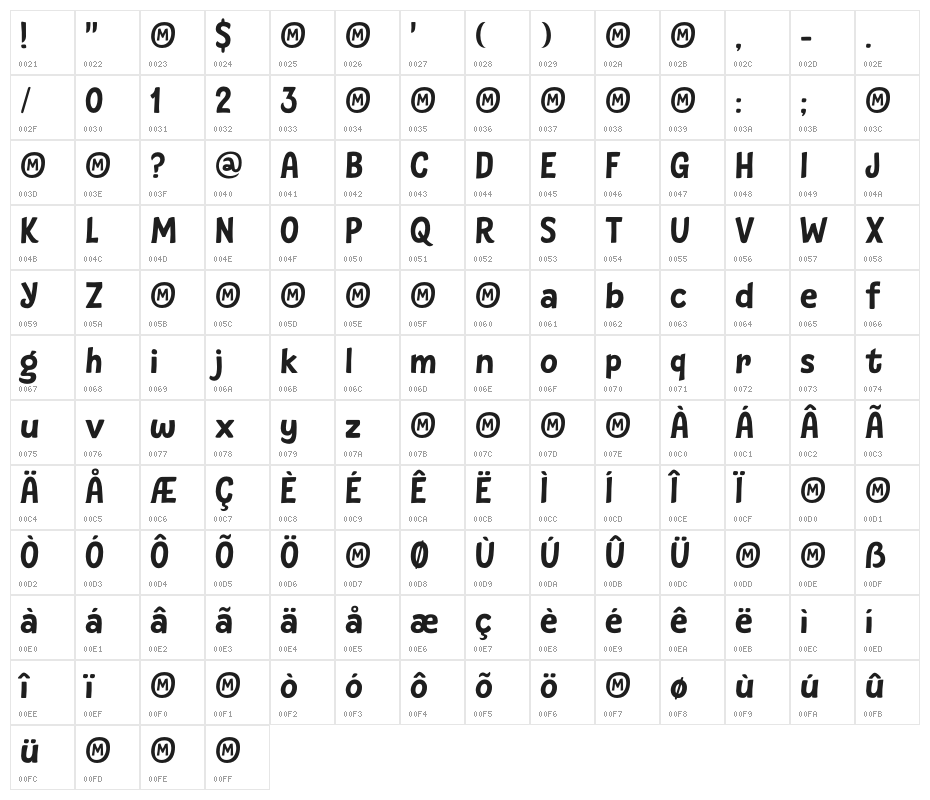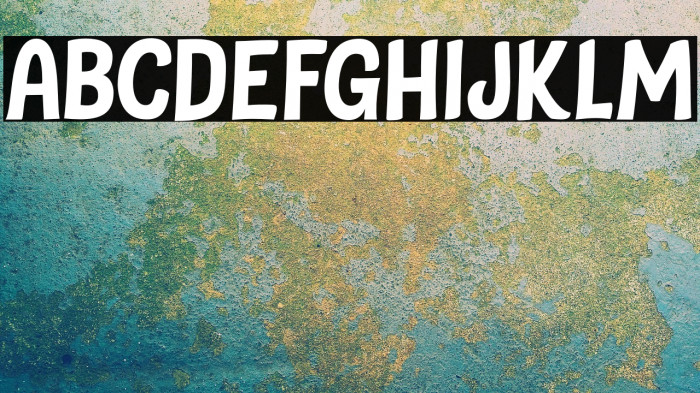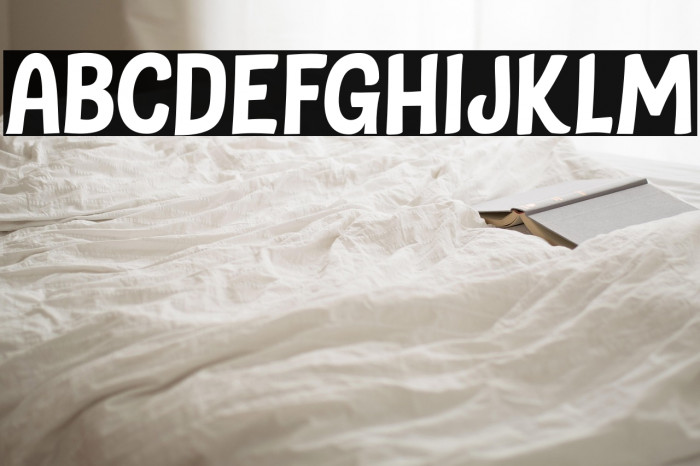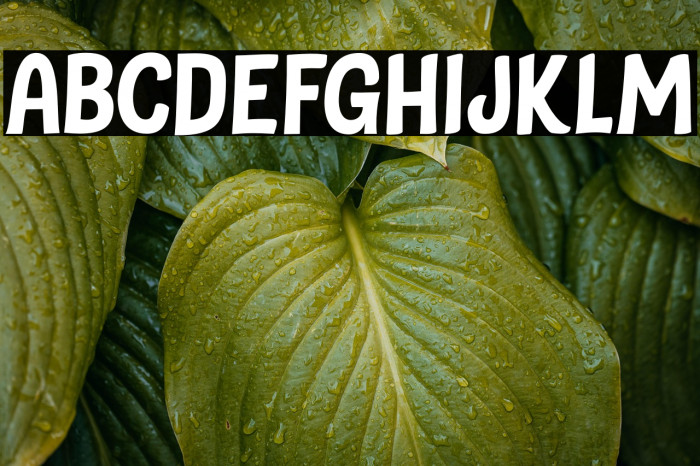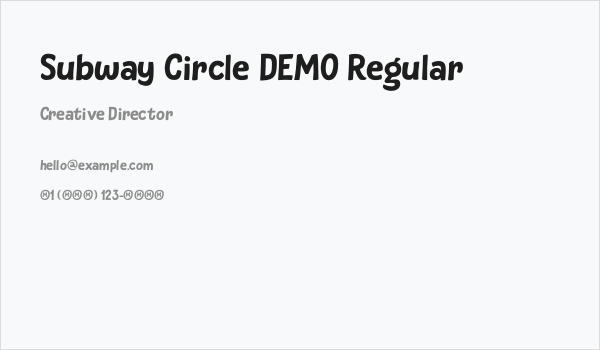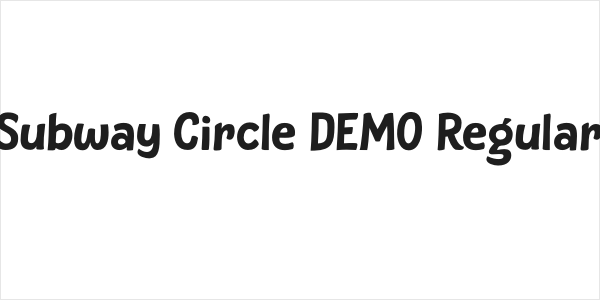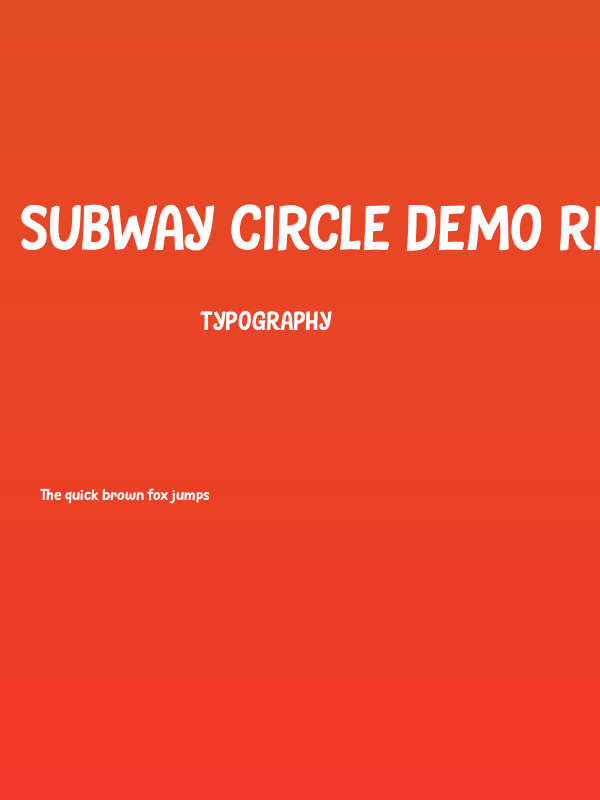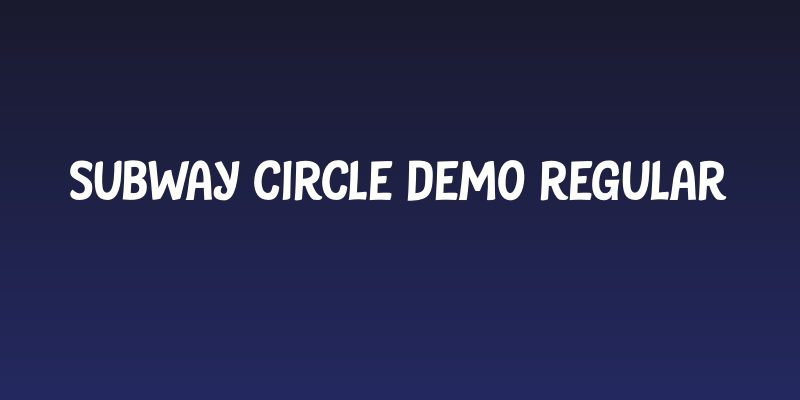
Subway Circle DEMO Regular Font
Subway Circle DEMO Regular Description
This font features a playful and bold style with rounded edges and a slightly irregular form, giving it a hand-drawn appearance. The uppercase letters are tall and slightly condensed, while the lowercase letters maintain a consistent height with a friendly, approachable look. The numerals are bold and clear, with a unique circular design for the number zero. Special characters are well-integrated, maintaining the overall rounded and bold aesthetic. This font's distinctive style makes it stand out, suitable for creative and informal applications.
| Overall Style | Playful, Hand-drawn |
| Proposed Projects | Ideal for children's books, playful branding, posters, and creative digital content. |